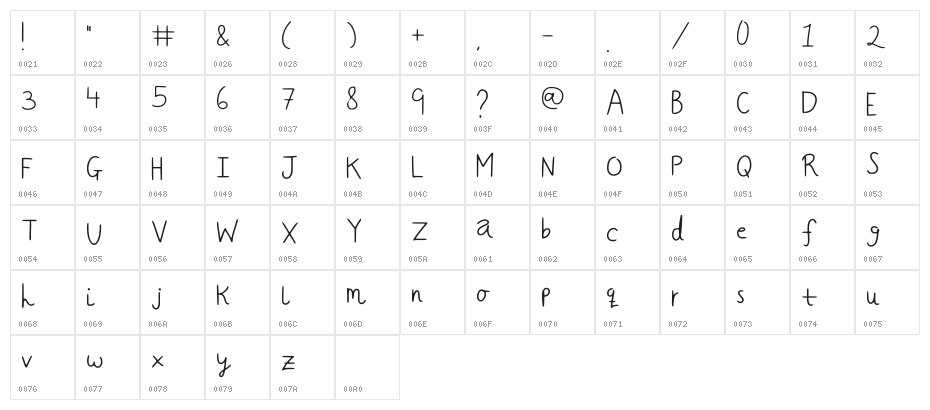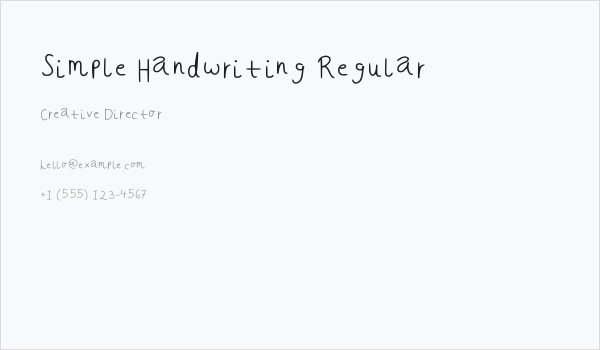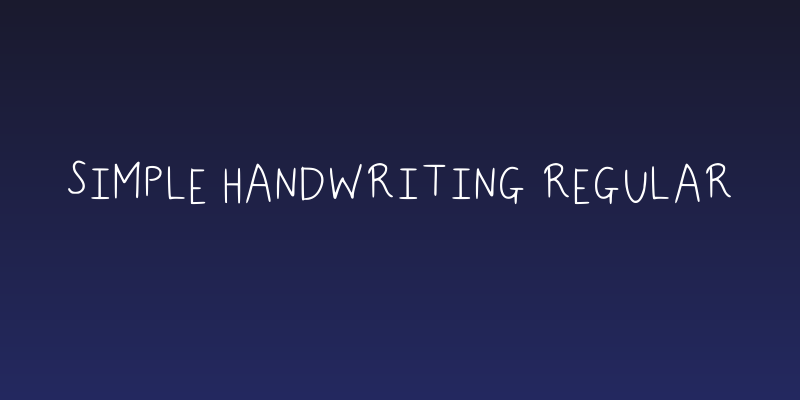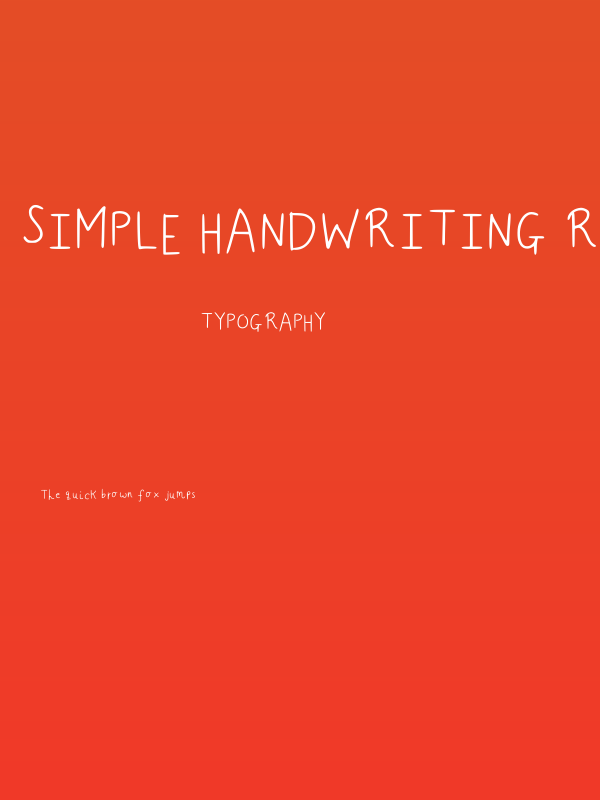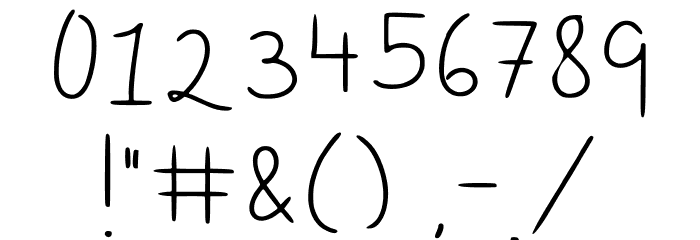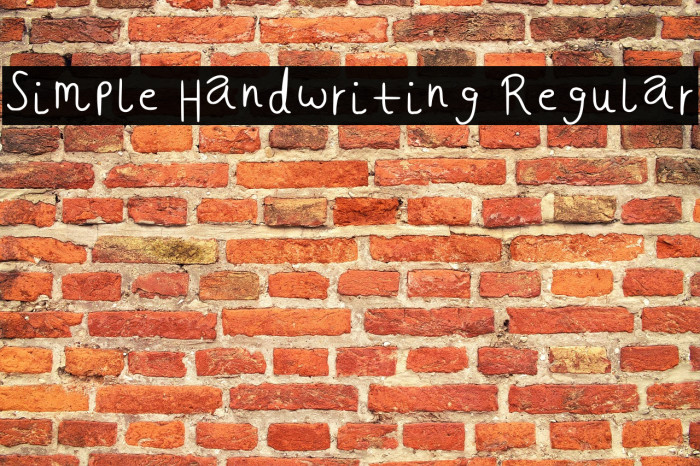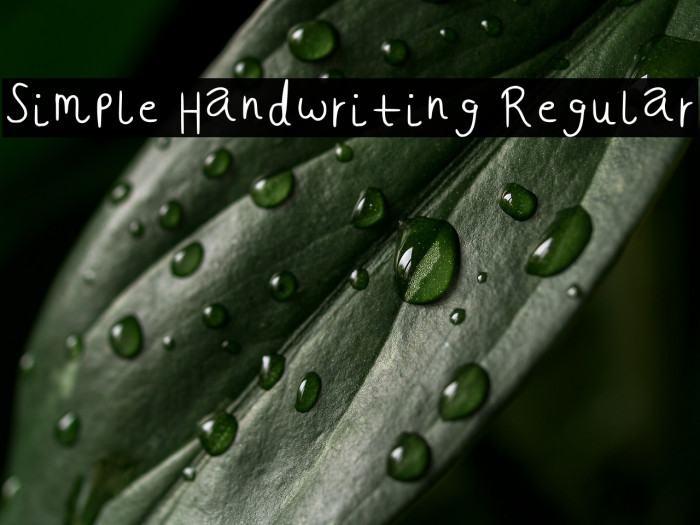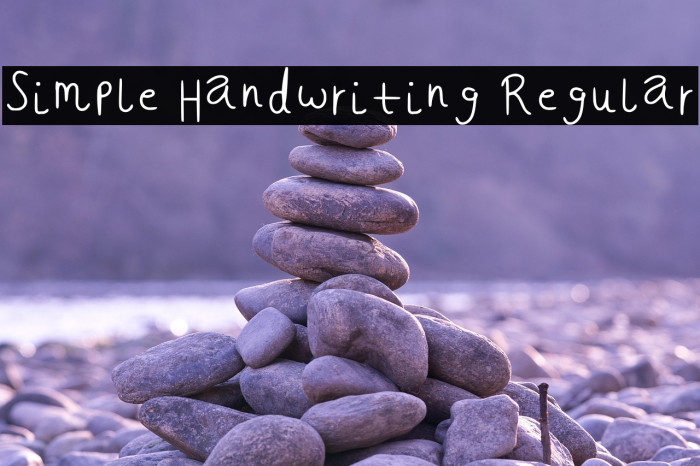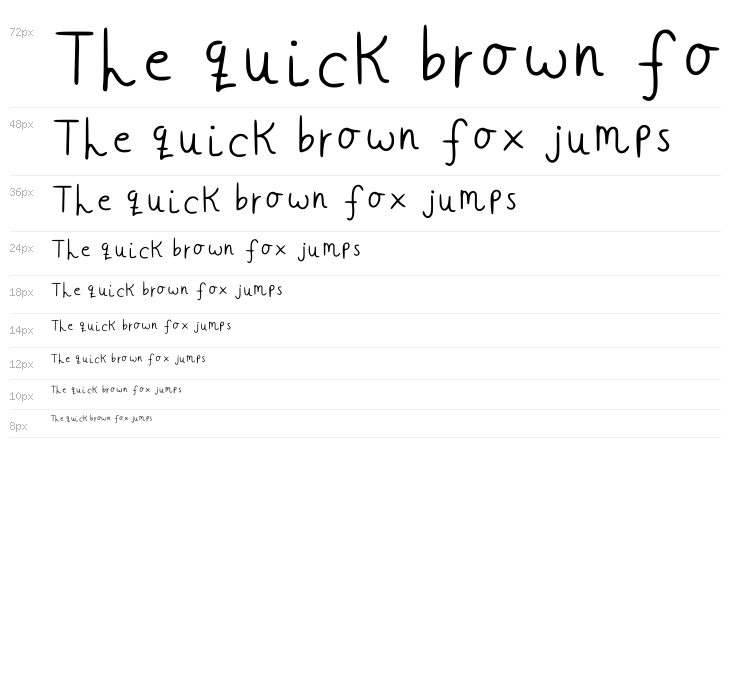
Simple Handwriting Regular Font
Simple Handwriting Regular Description
This font features a casual, handwritten style that mimics natural penmanship. Each character is crafted with a slight irregularity, giving it an authentic and personal touch. The uppercase letters are tall and slightly narrow, while the lowercase letters maintain a consistent flow with rounded edges. The numerals are simple and legible, complementing the overall informal aesthetic. Special characters are included, maintaining the same handwritten charm. This font is ideal for projects that require a personal or informal tone, such as greeting cards, personal notes, or creative projects.
| Overall Style | Casual, Informal |
| Use Case | Headlines, Personal notes, Creative projects |
| Proposed Projects | Greeting cards, personal notes, creative projects, informal invitations. |